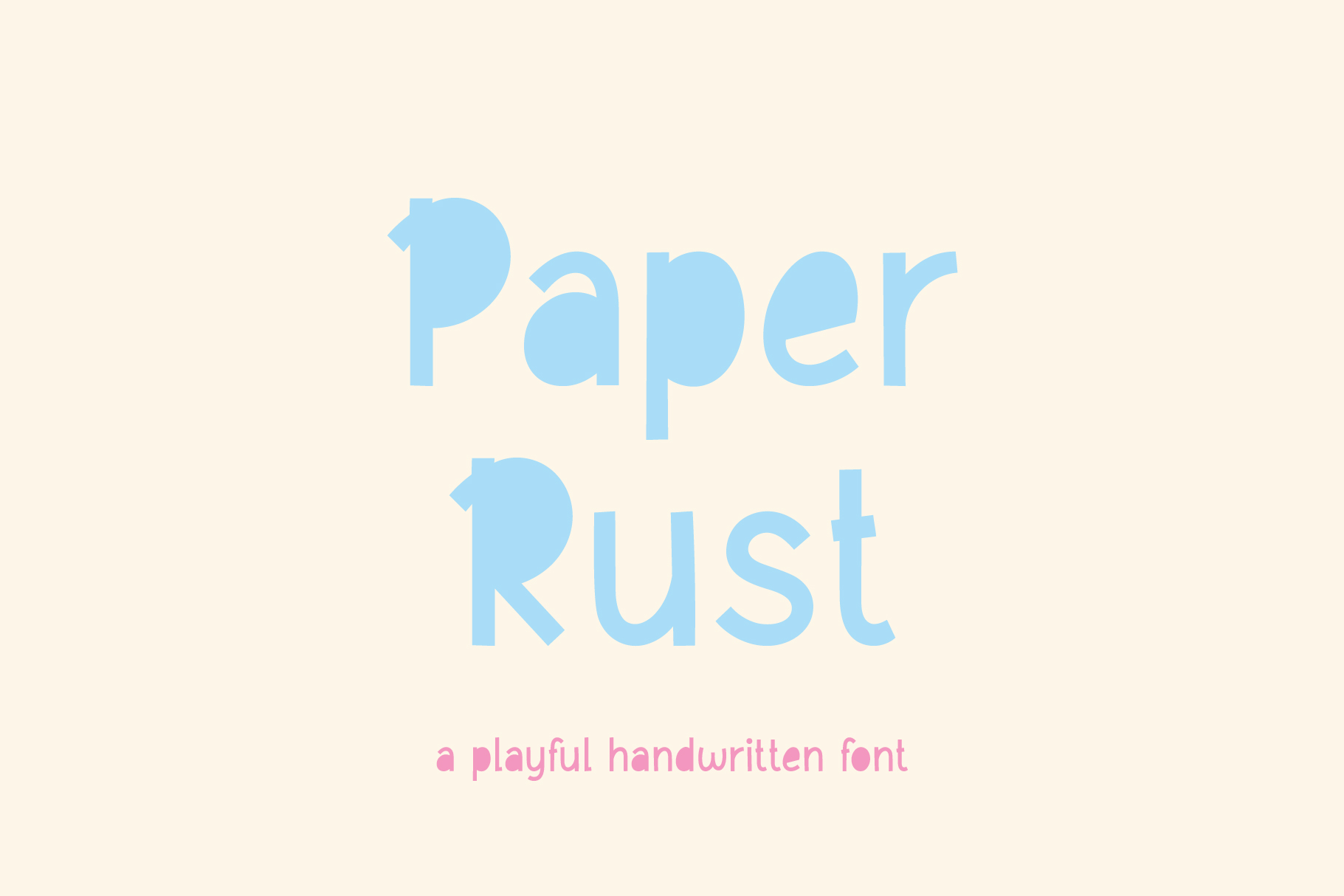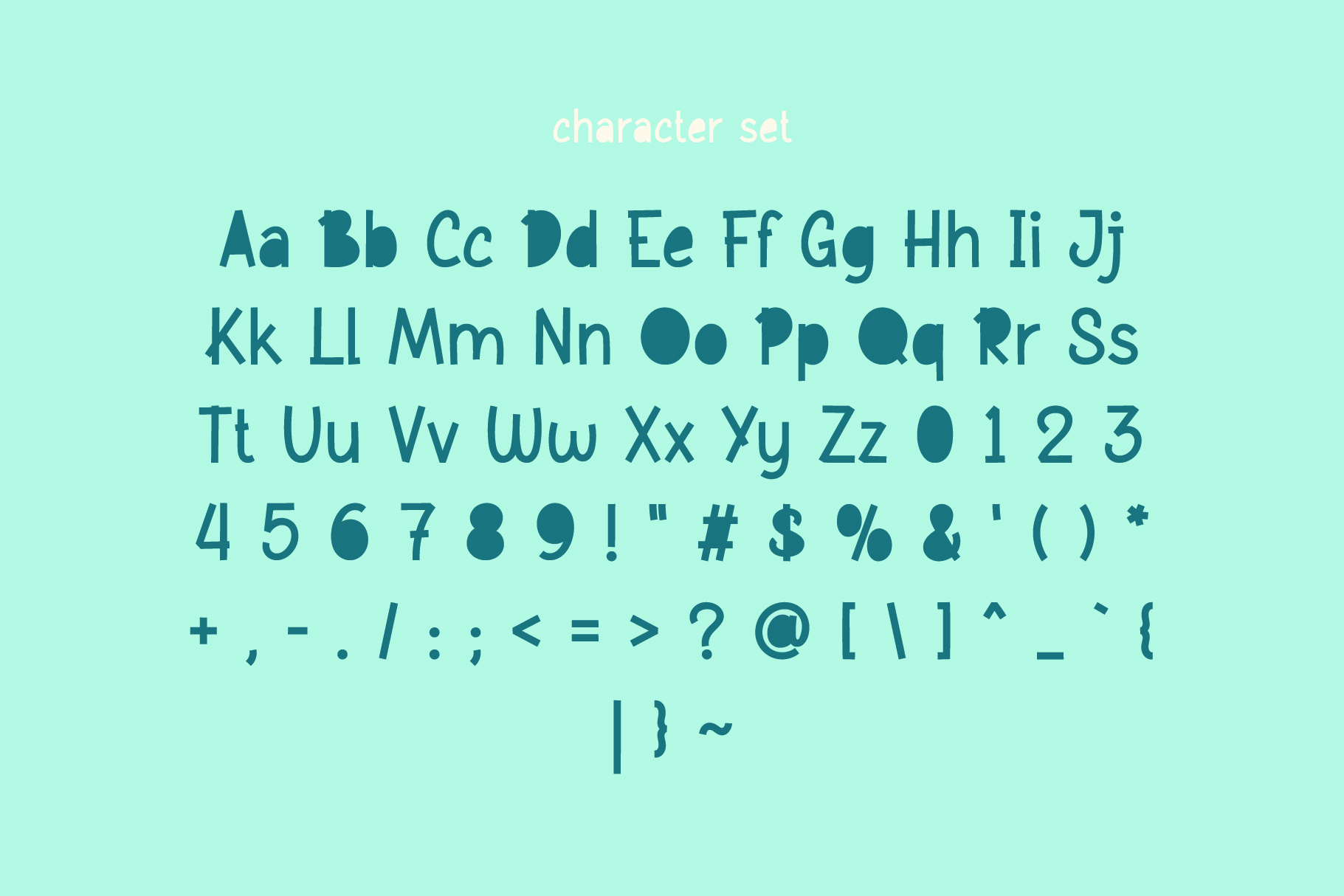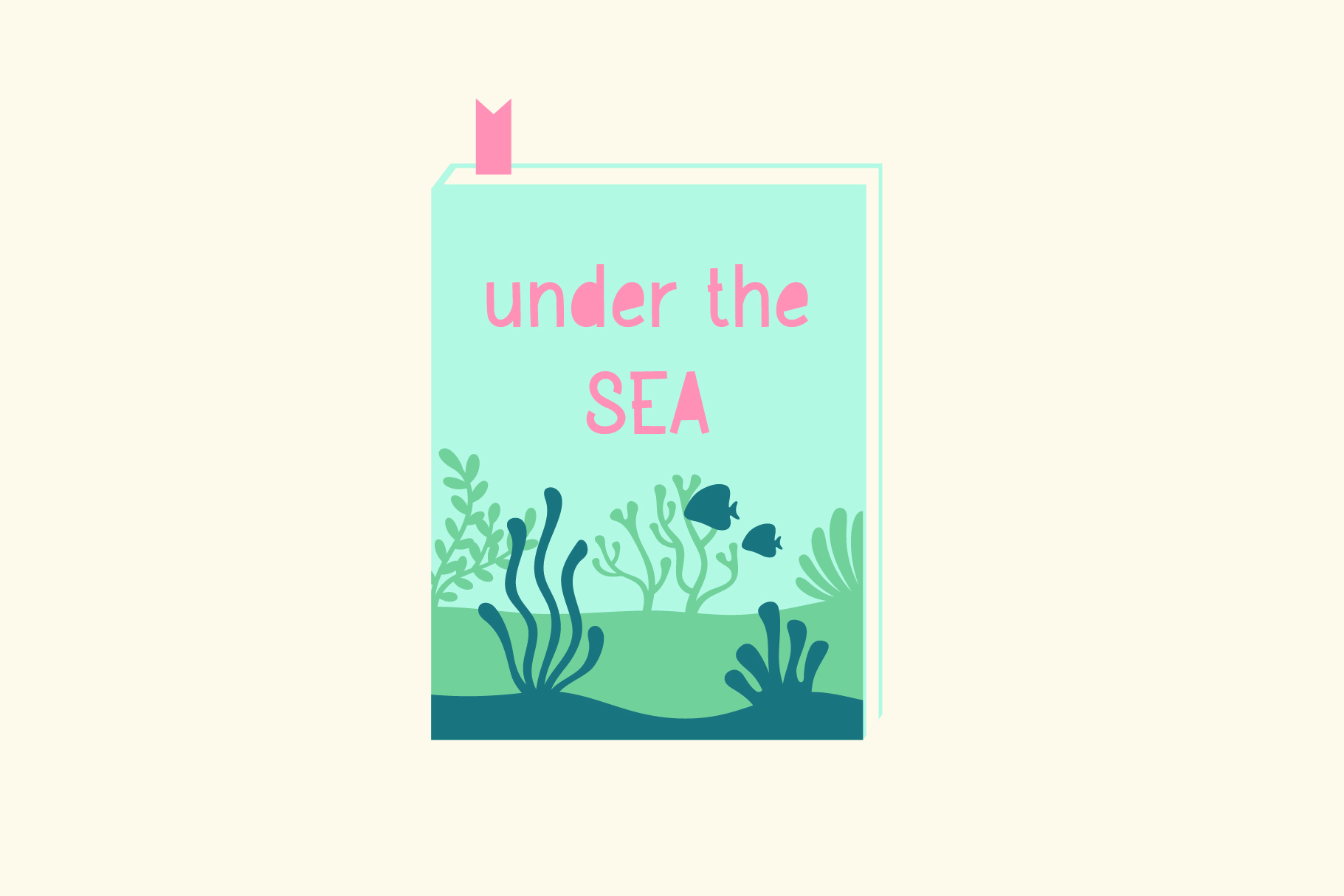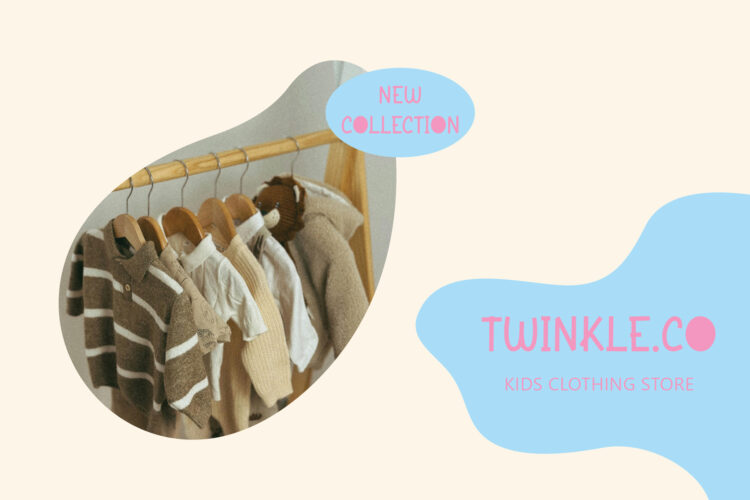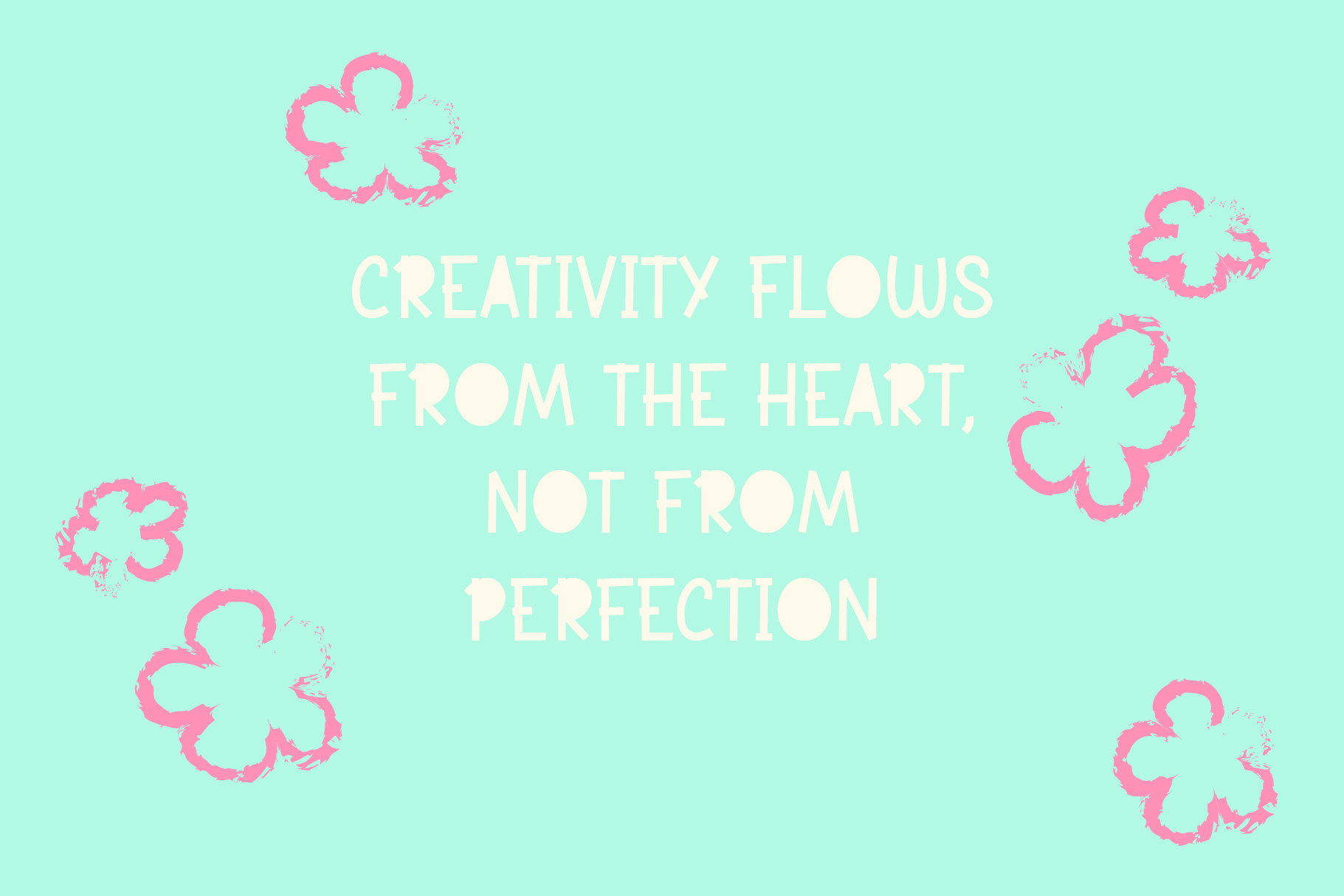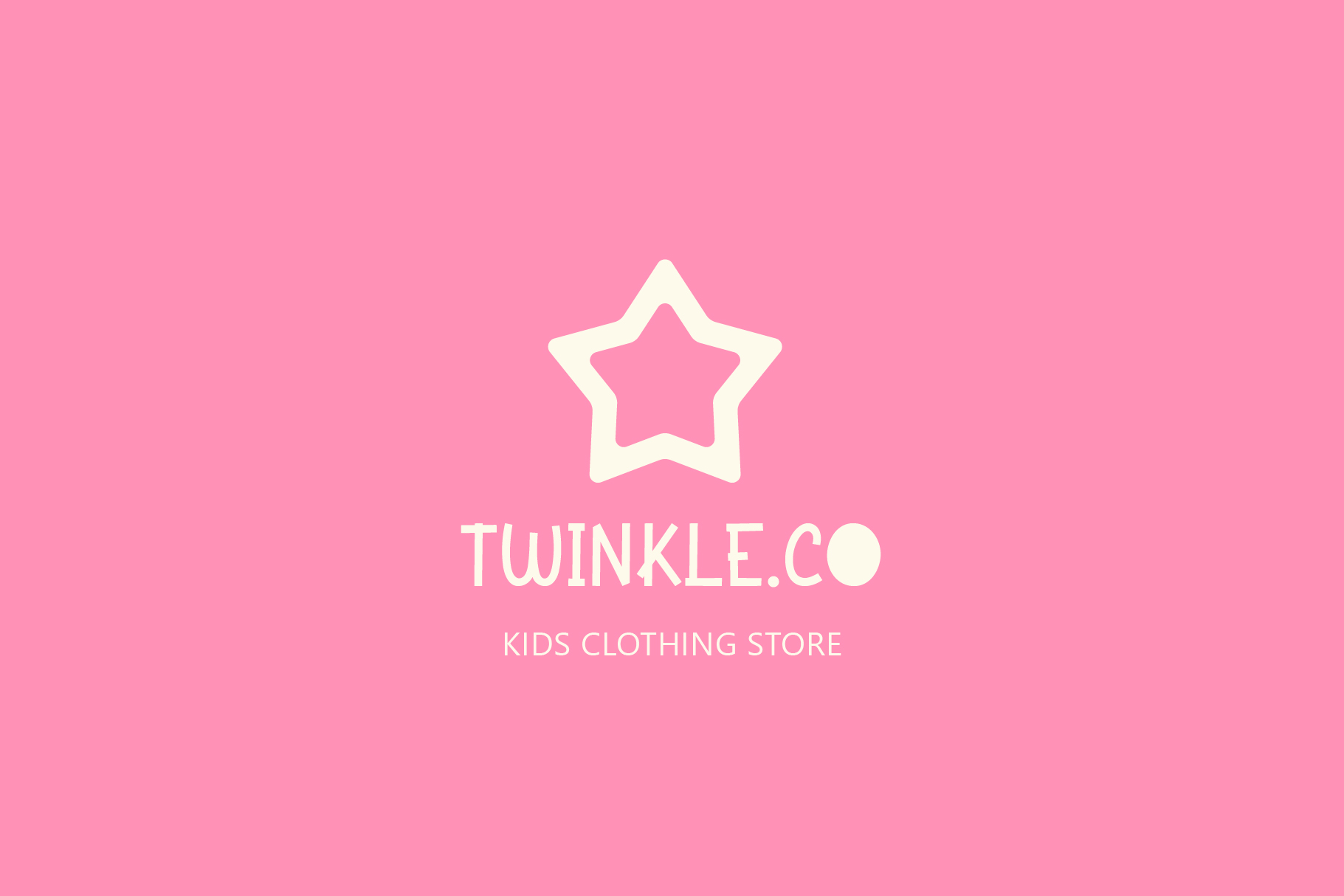
Introducing Paper Rust, a charming handmade sans-serif font with a unique papercut style that’s sure to bring a smile to your face! With its playful and whimsical feel, this font is perfect for adding a touch of personality to your designs.
Paper Rust is ideal for a variety of creative projects, including greeting cards, children’s magazines, kids’ clothing brands, mugs, and more. Its friendly and approachable vibe makes it perfect for designs that need to convey a sense of fun and playfulness.